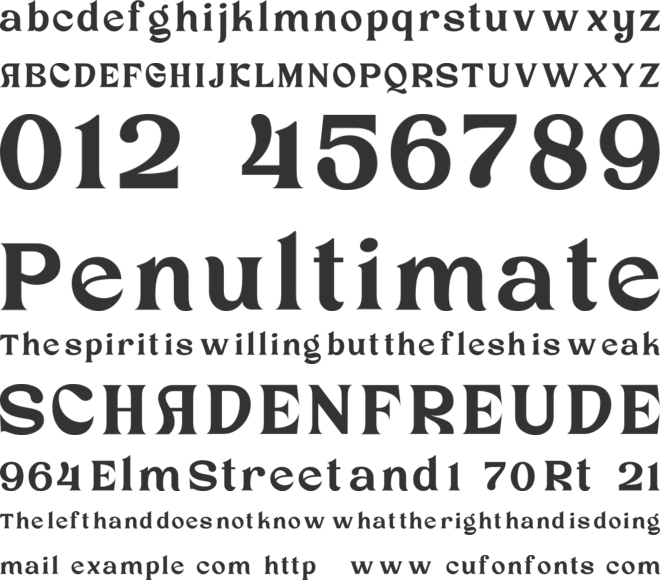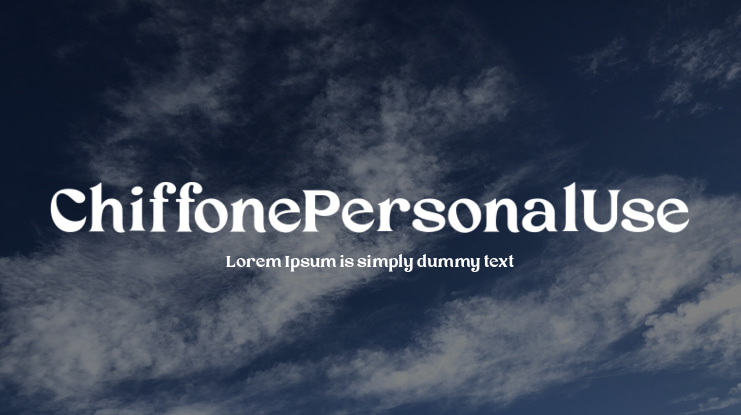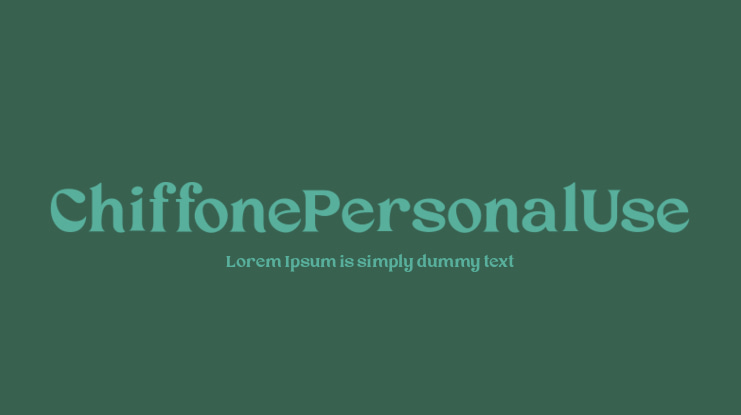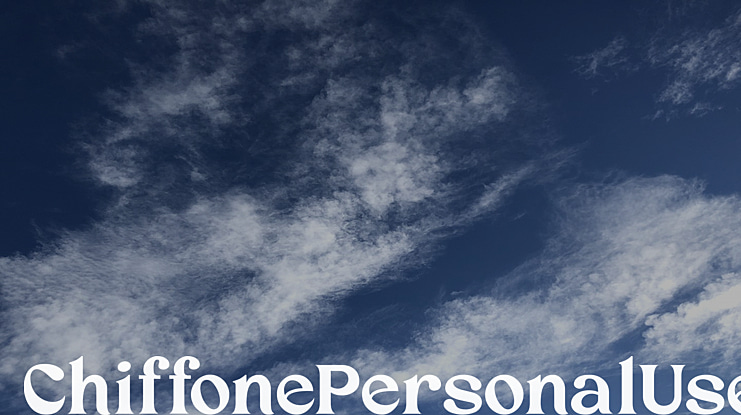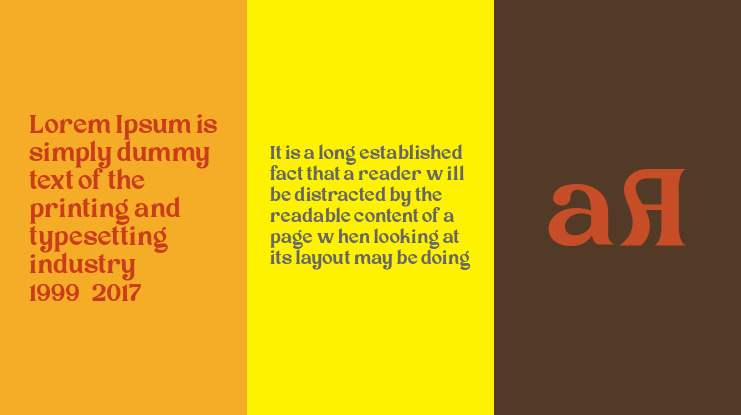
ChiffonePersonalUse Font
Chiffone is a serif font with a retro style that is suitable for a variety of design purposes. Has a very soft curve, looks elegant and attractive when applied to the design. Equipped with OpenType features such as Stylistic Alternate and rich Standard Ligature. It can be used in various countries because it supports Multilingual, adding to the maximum power of this font.